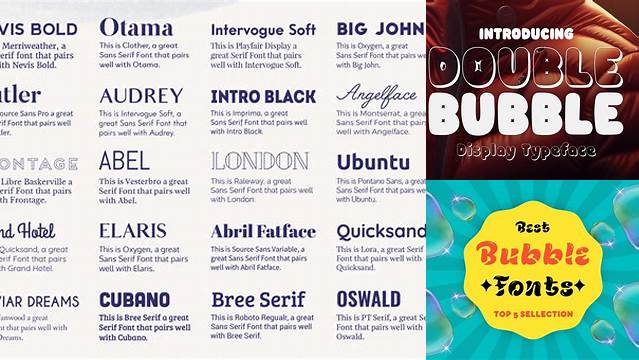
Best Font Pairings For Bubble Letters: A Complete Guide
Hey everyone! Ever wondered what fonts go with bubble letters to make your designs pop? Bubble letters are super fun and playful, right? But sometimes, pairing them with the right font can be a bit tricky. Don't worry, though! This guide is all about finding the perfect font companions for your bubbly creations. We'll dive into some awesome font combinations that'll make your bubble letters shine, covering everything from what makes a good match to some specific font recommendations. So, let's get started and explore the world of fonts that go with bubble letters! It's all about creating a visually appealing and harmonious design. Getting the right font combination is like finding the perfect outfit – it can totally transform your look and make a statement. Understanding the different styles and how they interact is key to a successful design. This guide will give you all the info you need to become a font pairing pro! Let's create some awesome designs together! Finding the right font can make a huge impact on your creative projects. Let's explore together!
Fonts that Complement Bubble Letters: Understanding the Basics
When you're looking for fonts that go with bubble letters, it's essential to understand what makes a good match. The goal is to create a balance between the playful bubble letters and the supporting font. Think about the overall message and the vibe you want to create. Bubble letters are inherently informal and fun, so the supporting font should complement this vibe rather than clash with it. Generally, you'll want to choose fonts that are easy to read and don't compete for attention. A good rule of thumb is to pair a bold, rounded bubble letter font with a more streamlined and straightforward font. This contrast can make your design more visually interesting. Avoid pairing bubble letters with fonts that are also overly ornate or complex, as this can make your design look cluttered and confusing. Choosing fonts that go with bubble letters is about creating a cohesive look. Think of your bubble letters as the star of the show and the other font as the supporting actor. The supporting actor's job is to make the star look good. The key is to find a font that is legible, that looks good in contrast with the bubble letters, and that enhances the overall aesthetic of your project. Fonts can create a unique effect and look. Your design should be both readable and appealing. The right choice of font is an art form. So, keep in mind that balance, contrast, and clarity are your best friends when you're exploring fonts that go with bubble letters.
Key Characteristics of Complementary Fonts
So, what specific traits should you look for in fonts that go with bubble letters? First and foremost, readability is key. The supporting font should be easy to read, especially if you're using it for body text or important information. This is really important because the aim is to make your message clear! You don't want your design to be difficult to understand because of a fancy font. Second, consider the style. The best fonts that go with bubble letters often have a clean, simple style. Think about fonts like sans-serif fonts. These fonts typically lack the decorative serifs found in other font types. Sans-serif fonts offer a clean and modern look that contrasts well with the roundness of bubble letters. On the other hand, think about fonts that are a bit more playful or whimsical to match the bubble letters. This is a great way to emphasize the bubbly theme. Third, think about the weight of the font. Avoid using fonts that are too bold or too light. Too bold, and it'll compete with the bubble letters. Too light, and it might get lost. A good starting point is to go for a medium-weight font. The weight of the font should complement, not compete with your bubble letters. This will create a harmonious balance in your design. Remember, it's all about finding a font that enhances your design! It should be clear, easy to read, and also aesthetically pleasing. This will make your design feel more polished. Make it your own and create a design that speaks to you!
Best Font Pairings for Bubble Letters: Style Recommendations
Now that we've covered the basics, let's get down to some specific font pairings that work beautifully with bubble letters. There are several great options you could use. There are multiple factors involved in choosing the fonts that go with bubble letters. Remember, fonts have different personalities, and the right choice can make a real difference. Here are a few suggestions to get you started. This will help you to get a great look!
Sans-Serif Fonts to Pair with Bubble Letters
Sans-serif fonts are fantastic choices when you're looking for fonts that go with bubble letters. These fonts offer a clean, modern look that provides a beautiful contrast. They complement the roundness and playfulness of bubble letters without competing for attention. Popular options include Arial, Helvetica, and Open Sans. These fonts are widely available and are incredibly readable, which is crucial for supporting text or any other information. The simplicity of sans-serif fonts allows your bubble letters to stand out. These fonts are perfect when you want to create a balanced and clean design. When selecting a sans-serif, consider its weight and style. A medium-weight font will work well, providing enough visual support without overwhelming your bubble letters. Also, look at the font's personality. Some sans-serif fonts are more geometric, while others have a slightly softer feel. Choose the one that best matches the overall tone you want to create. When selecting a sans-serif font, keep in mind the project's audience. The font should resonate with them. A simple font can bring a visual appeal. These fonts are great for headlines. Sans-serif fonts create a more modern style.
Script Fonts for a Touch of Elegance
If you want to add a touch of elegance and sophistication to your designs, script fonts are a great choice when you're exploring fonts that go with bubble letters. Script fonts mimic handwriting, adding a personal and artistic touch. They can create a nice contrast. Use a script font sparingly because it can sometimes be less legible than a sans-serif. If you decide to use a script font, choose one that is clean and easy to read. Overly elaborate or fancy scripts can make your design look cluttered. The most important aspect of choosing script fonts is to consider their style. Some script fonts are very formal, while others are more casual. The script font should complement the style. When pairing with bubble letters, keep the use of the script font to a minimum. Use it for short phrases or headlines rather than large blocks of text. This will help balance the design. Make sure your script font isn't too similar to the bubble letters. The idea is to create contrast. Think about the overall message and the tone you want to convey. A delicate script font can add a touch of femininity or romance, while a bold script font can add energy. Be careful when selecting your fonts that go with bubble letters. Script fonts can make a project look polished. This kind of font is a work of art.
Choosing Monospace Fonts with Bubble Letters
When seeking fonts that go with bubble letters, Monospace fonts offer a unique and modern aesthetic. These fonts have a fixed width. Monospace fonts provide a consistent look and feel, which can add a touch of structure to your designs. They are especially useful when you need to align text or create a grid-like layout. This makes them great for coding, but also for a fun and unique look when paired with bubble letters. However, monospace fonts aren't the most versatile options when it comes to readability. They can sometimes appear a bit rigid. If you decide to use a monospace font, choose one that is simple and easy to read. Don't go for overly complex fonts. When pairing with bubble letters, you might consider using a monospace font for a supporting element. For instance, use it for a subtitle or a tagline. Using monospace fonts requires a bit of creativity. Consider the visual contrast between the fixed width of the monospace font and the roundness of your bubble letters. This can create a visually appealing and memorable effect. Also, remember that these fonts have a specific aesthetic. They often bring a more retro or tech-inspired look to your projects. So, when choosing monospace fonts, consider the audience.
Display Fonts to Consider
Display fonts, with their unique and expressive styles, can be a fun option when you're searching for fonts that go with bubble letters. They are designed for headlines. Display fonts offer a great opportunity to create visual interest. However, they can also be quite complex. It is crucial to choose a display font that is easy to read and complements the playful nature of the bubble letters. It is important to avoid fonts that are too distracting. Stick to display fonts with clean and easy-to-read designs. Display fonts can add personality to your projects. Display fonts are great for creating a unique visual identity. When selecting a display font, think about its shape and style. Some display fonts are tall and thin, others are wide and bold. The display font should complement the overall style of the design. Pairing display fonts with bubble letters creates a bold, playful look that's perfect for attention-grabbing headlines. You must keep an eye on the visual contrast. Make sure your display font isn't too similar to bubble letters. Choose one that offers a clear contrast. You want to create a balance. Display fonts can add visual appeal to your design.
Advanced Font Pairing Techniques
Now, let's take your font pairing skills to the next level with some advanced techniques. This will help you to find the right fonts that go with bubble letters. These techniques can help you to achieve more sophisticated and visually appealing designs. Are you ready to go deeper? Let's dive in and enhance your designs!
Contrasting Font Weights and Styles
One of the most effective advanced techniques is to use contrasting font weights and styles when searching for fonts that go with bubble letters. This involves pairing a bold bubble letter font with a lighter weight supporting font or vice versa. For instance, you might pair a very bold bubble font with a sans-serif font in a regular or light weight for supporting text. The contrasting weights create visual interest. You'll notice that you create a sense of balance in your design. Another technique is to combine different font styles. For example, you might use a rounded bubble letter font and pair it with a geometric sans-serif font. The contrast between the roundness of the bubble letters and the sharp lines of the geometric font creates a nice effect. This will add a dynamic touch to your design. The key to using contrasting weights and styles is to maintain balance. Too much contrast can make your design look messy. Try different combinations. Make sure the fonts complement each other, rather than competing for attention. The goal is to draw attention to the most important elements of your design. By using these techniques, you can add depth and sophistication. Your designs can become more visually engaging.
Conclusion: Mastering the Art of Font Pairing for Bubble Letters
Congratulations! You've now explored the world of fonts that go with bubble letters. You should know that there are many ways to create stunning designs. Remember to think about the basics. Always consider your audience. Choosing fonts is a skill that you'll develop with practice. Keep experimenting with different font combinations. Don't be afraid to try new things. The best designs are the ones that you enjoy creating. Keep on creating and learning. Let your creativity shine! Happy designing, guys! This is what fonts that go with bubble letters is all about.